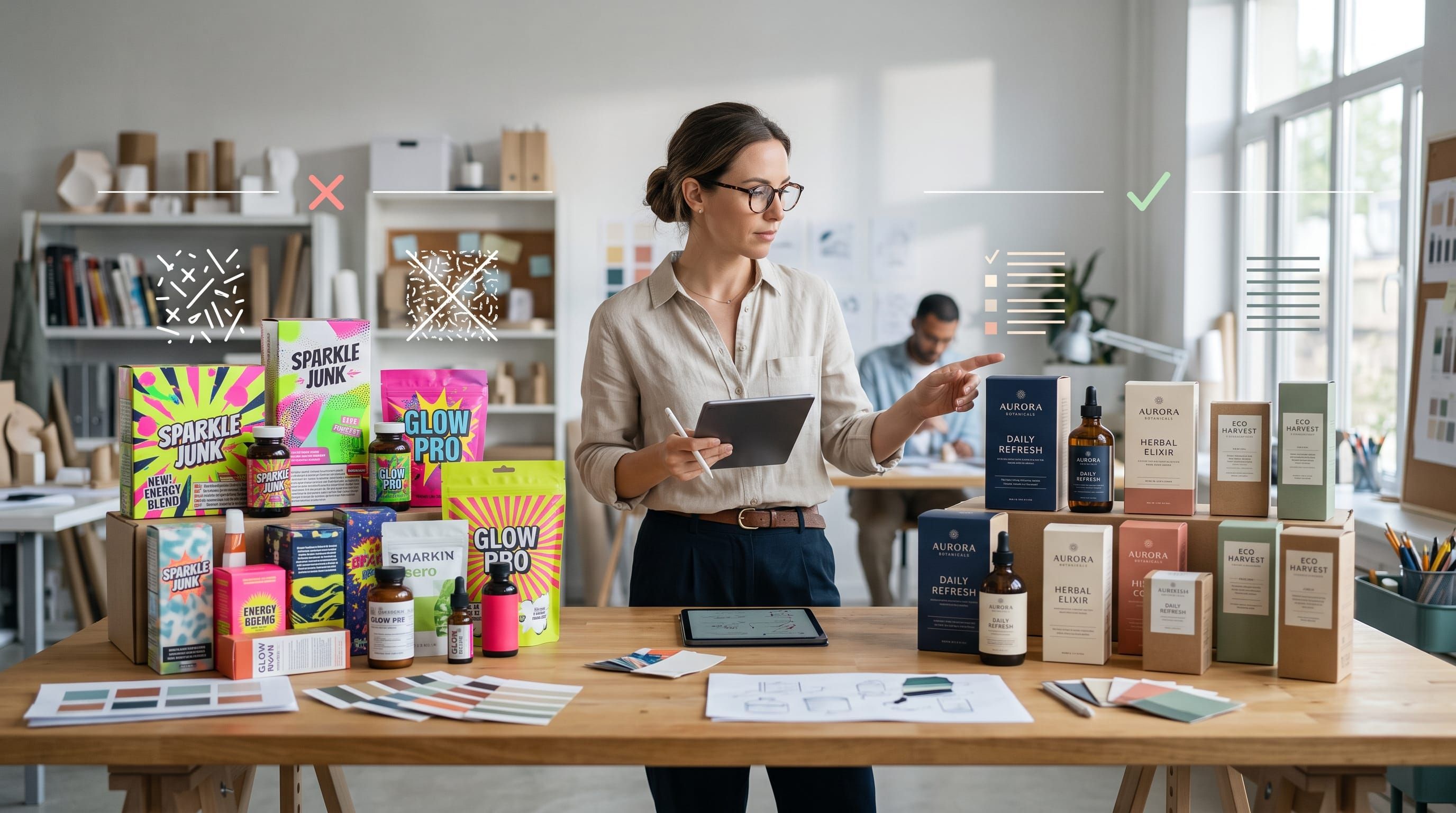
15 Common Packaging Design Mistakes and How to Fix Them
Packaging design mistakes can make a good product appear confusing, unprofessional, difficult to use, or less valuable than competing options. Packaging is often the first physical interaction customers have with a product, so every design choice can influence recognition, trust, and purchasing decisions.
An attractive package must do more than look beautiful. It needs to protect the product, explain what it is, communicate important information, support the brand identity, and function correctly throughout shipping, storage, retail display, and everyday use.
Designers sometimes focus heavily on visual style while overlooking typography, production limitations, material performance, legal requirements, or customer behavior. A concept may look impressive on a screen but fail when printed, folded, photographed, opened, or placed beside competing products.
The following guide explains 15 common packaging design mistakes and provides practical solutions for creating packaging that is clearer, more functional, consistent, and commercially effective.
Why Knowing Packaging Design Mistakes Is Important
Packaging influences several stages of the customer experience.
It may affect:
• First impressions
• Shelf visibility
• Product understanding
• Brand recognition
• Perceived quality
• Opening experience
• Storage convenience
• Product protection
• Repeat purchases
• Customer trust
Poor packaging can cause customers to misunderstand the product, overlook important instructions, select the wrong variation, or choose a competitor instead.
Some packaging design mistakes also create direct business costs. Incorrect measurements, unsuitable materials, unreadable information, and weak structures can lead to reprinting, product damage, returns, and negative reviews.
A successful design balances branding, communication, usability, production, and compliance.
1. Creating a Cluttered Front Panel
One of the most frequent packaging design mistakes is placing too much information on the front of the package.
The front panel may include:
• Brand name
• Product name
• Tagline
• Benefits
• Certifications
• Ingredients
• Instructions
• Promotional messages
• Social media details
• Decorative graphics
When every element competes for attention, customers may struggle to understand what the product actually is.
How to Fix It
Create a clear information hierarchy.
The front panel usually needs:
• Brand name
• Product name
• Product type
• Main benefit or variation
• Size or quantity
Move detailed instructions, company information, and supporting claims to the side or back panel.
Use spacing, scale, and alignment to guide the viewer from the most important information to the least important.
2. Using Typography That Is Too Small
Small typography may look elegant on a large design monitor but become difficult to read when printed.
This issue often affects:
• Ingredients
• Instructions
• Product descriptions
• Legal information
• Contact details
• Nutrition information
• Warnings
Customers should not need to hold the package extremely close or use a phone camera to read basic information.
How to Fix It
Print the design at its actual size during every major review stage.
Check readability from a realistic viewing distance and under different lighting conditions.
Use a clear typeface with:
• Open letterforms
• Adequate line spacing
• Strong contrast
• Appropriate font weight
• Comfortable letter spacing
Do not reduce text simply to preserve empty space. Adjust the layout, remove unnecessary wording, or increase the panel size when possible.
3. Choosing Style Over Readability
Decorative typography can create personality, but excessive styling may make the product name or essential information difficult to understand.
This is especially common with:
• Thin scripts
• Highly ornamental fonts
• Distorted lettering
• Extreme condensed fonts
• Low-contrast serif fonts
• Unusual capitalization
Customers may appreciate the appearance but still fail to recognize the product quickly.
How to Fix It
Reserve decorative fonts for short headlines, logos, or product names.
Use a readable supporting typeface for:
• Descriptions
• Instructions
• Ingredients
• Warnings
• Technical information
Test the design with people who have not seen it before. Ask them to identify the brand and product within a few seconds.
Good packaging typography should create personality without sacrificing clarity.
4. Weak Visual Hierarchy
A package may contain all the necessary information but still feel confusing when everything has the same size, weight, and visual importance.